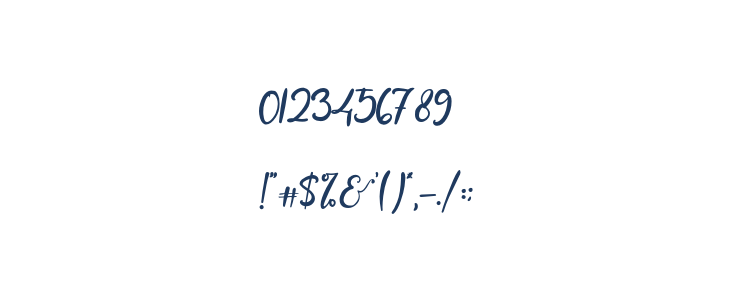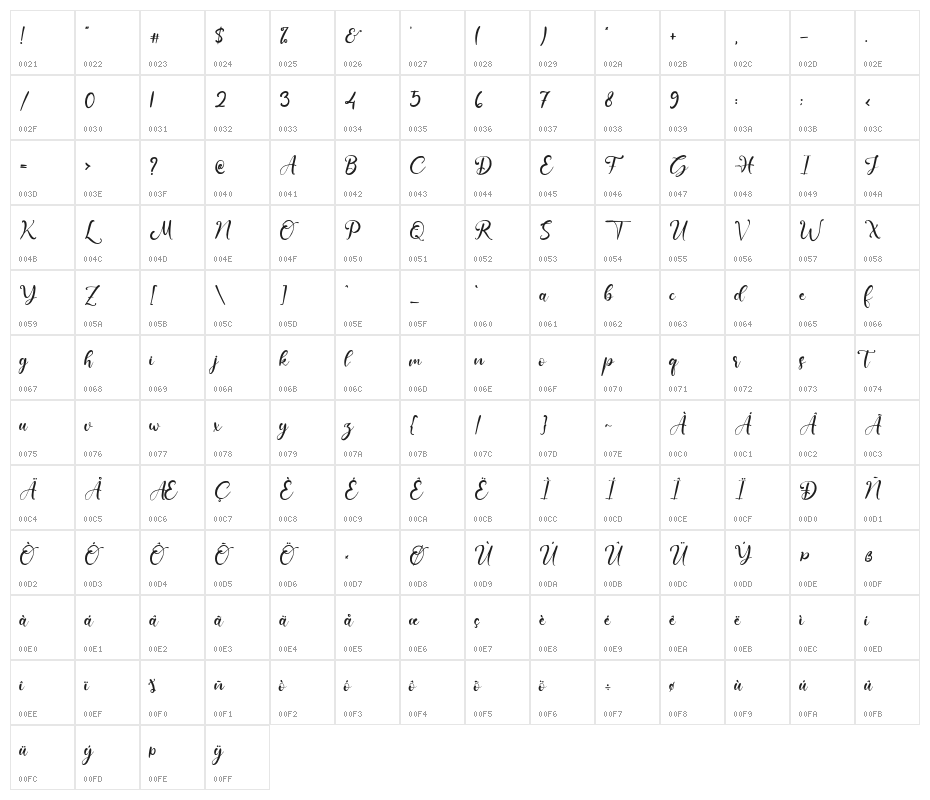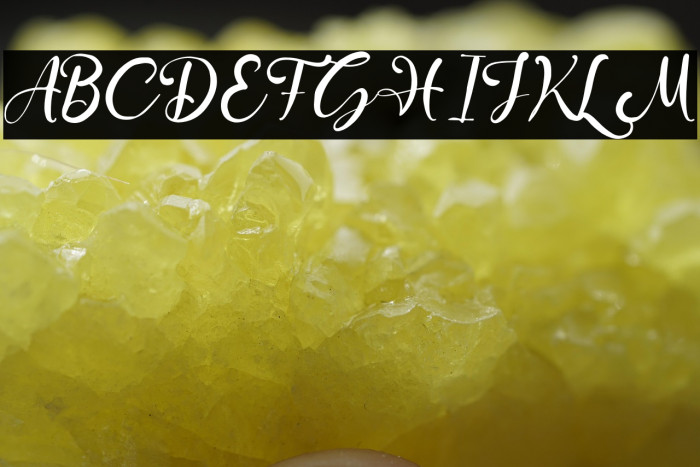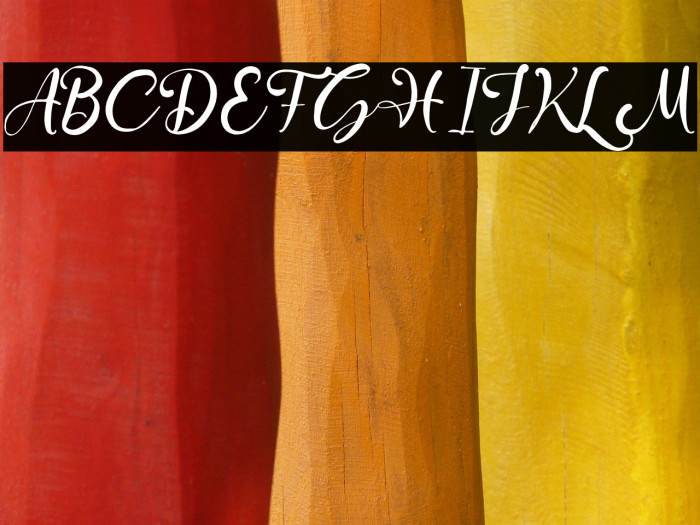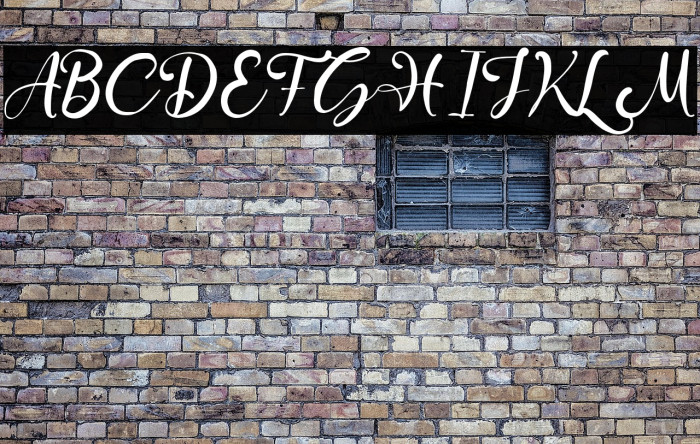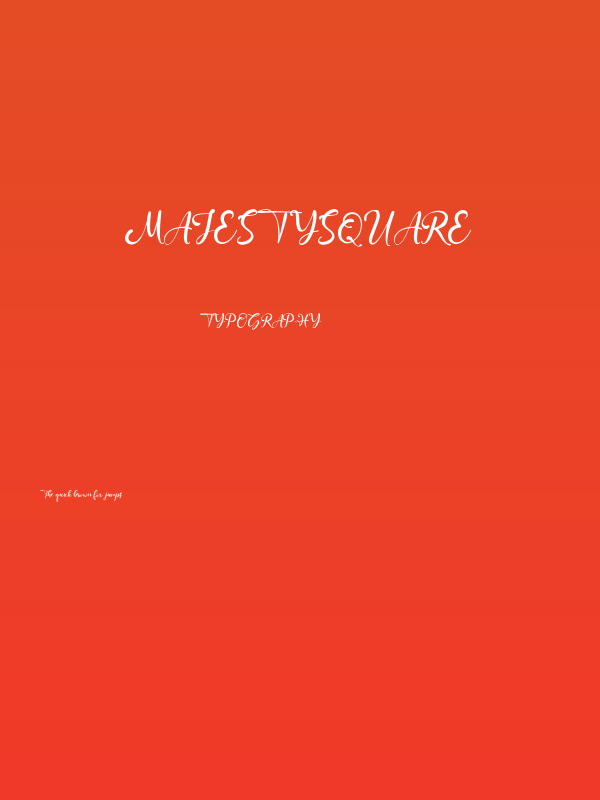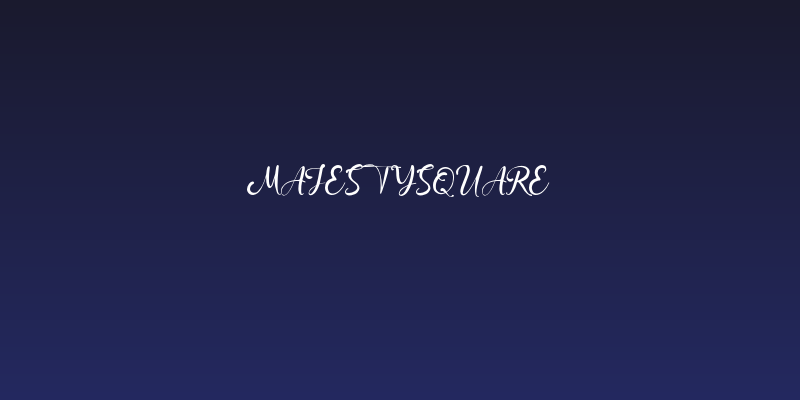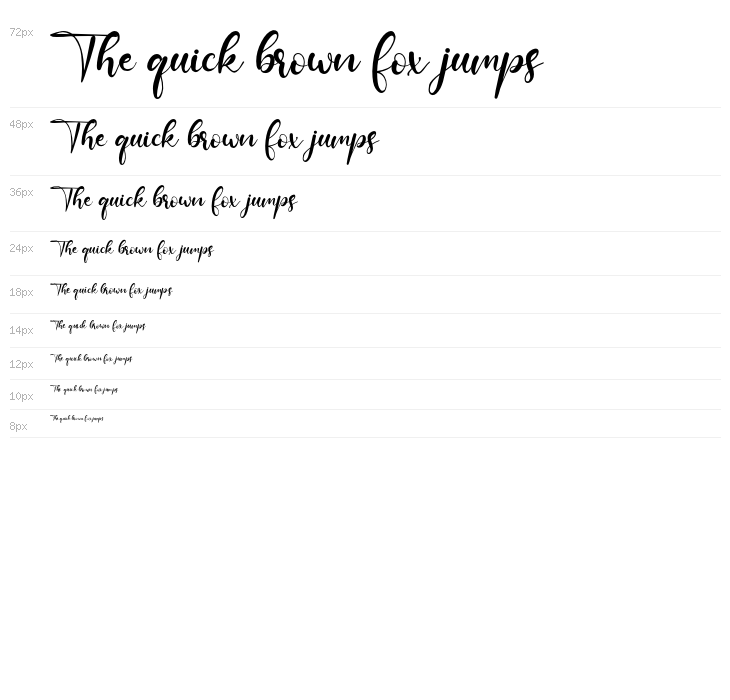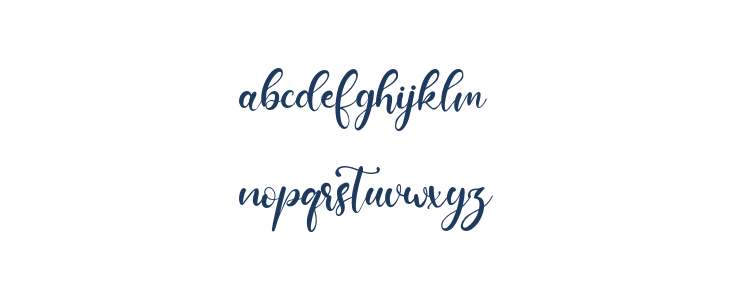
MajestySquare Font
MajestySquare Description
This elegant script font features flowing, interconnected letters that exude a sense of sophistication and grace. The uppercase letters are characterized by their sweeping curves and flourishes, giving them a decorative and ornate appearance. The lowercase letters maintain a consistent style, with smooth transitions and a slightly more restrained use of embellishments. The numbers are designed to complement the letters, with a similar level of detail and elegance. Special characters are thoughtfully crafted to match the overall aesthetic, ensuring a cohesive look across all text. This font is perfect for projects that require a touch of class and refinement, such as wedding invitations, luxury branding, or high-end product packaging.
| Proposed Projects | Ideal for wedding invitations, luxury branding, and high-end product packaging. |